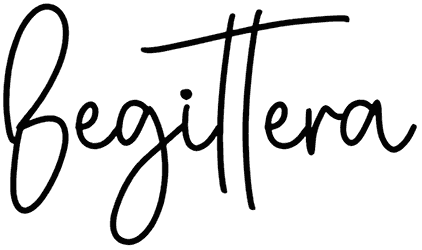
Begittera Font
Begittera is a sweet, handmade font that creates a subtle and natural look to your content. The thin lines and rounded joints in this handwritten font can create a fine-drawn and elegant visual style in your content that will encourage the viewer to read it.
This script font is a good tool without numbers that you can use to improve projects related to logo design of reputable companies, stationery packaging, and wedding cards.